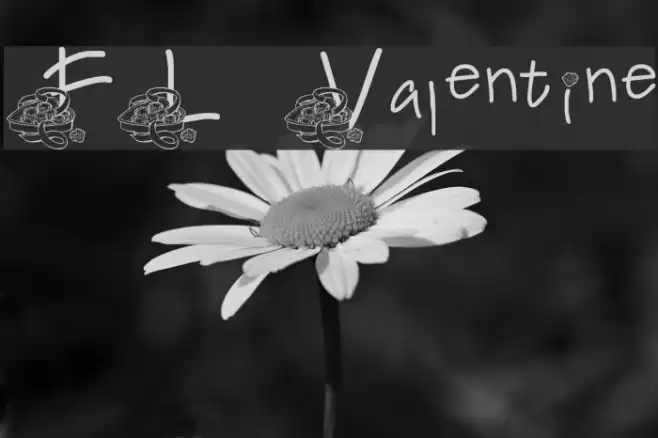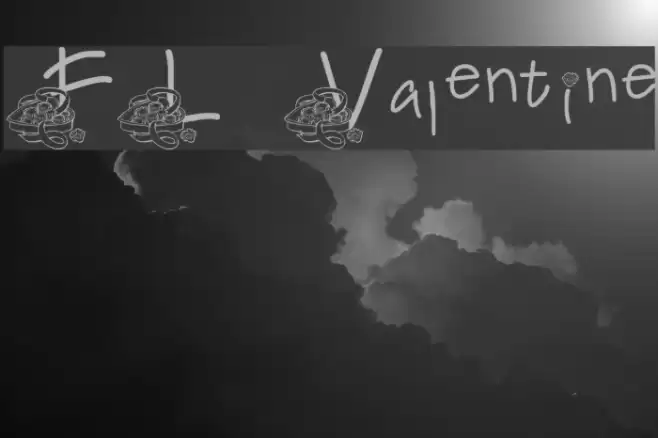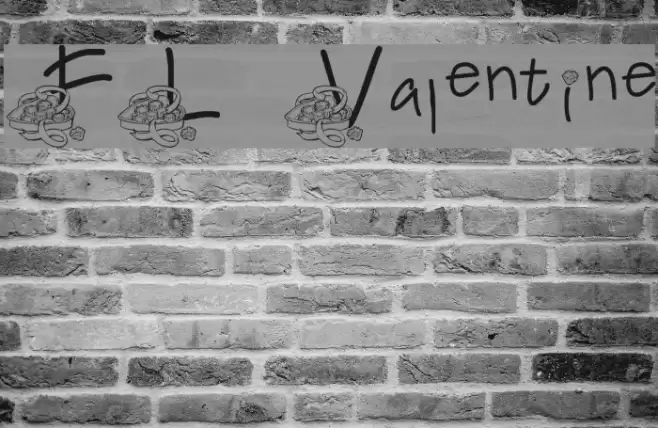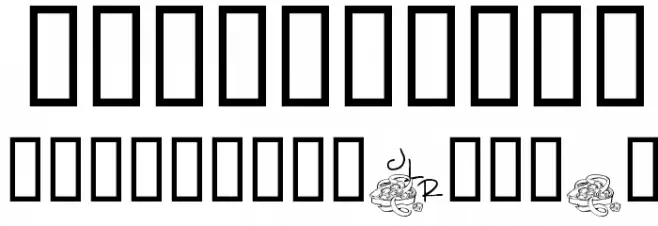
FL Valentine Font
FL Valentine Description
This playful and whimsical font features a unique combination of hand-drawn elements and decorative accents. Each uppercase letter is adorned with a charming rose motif, adding a romantic and artistic flair. The lowercase letters maintain a casual, handwritten style with slight variations in stroke width, giving them a lively and dynamic appearance. The font's overall design is light-hearted and creative, making it ideal for projects that require a touch of elegance and personality. The absence of numerals and special characters suggests a focus on artistic expression rather than functional text.
A whimsical, decorative font with rose motifs and a handwritten style from Uncategorized fonts.